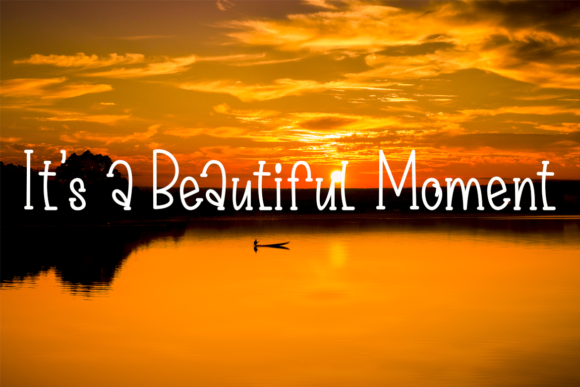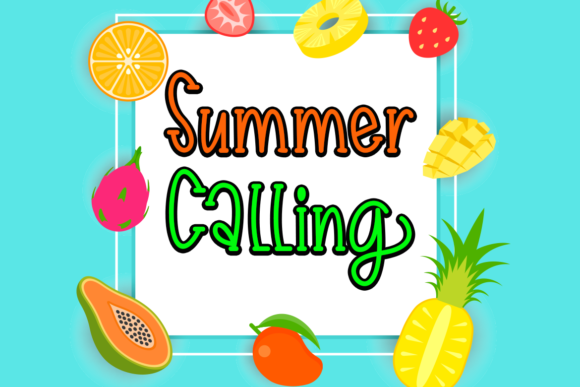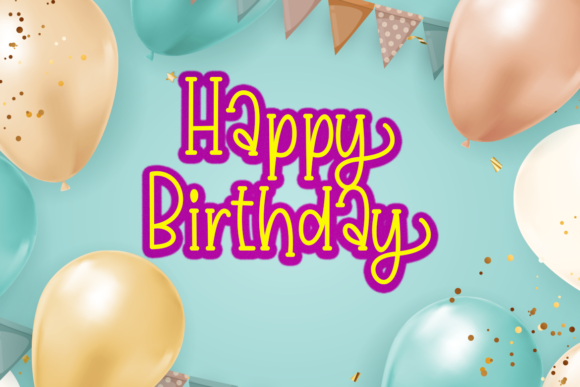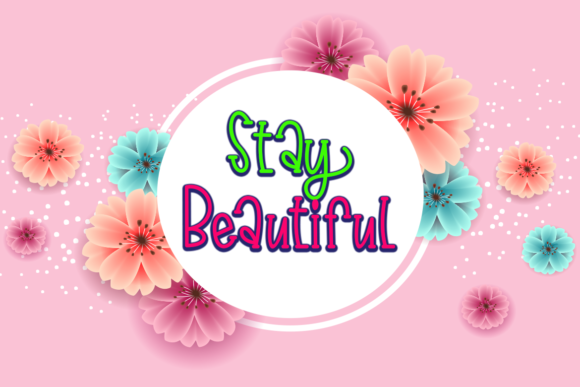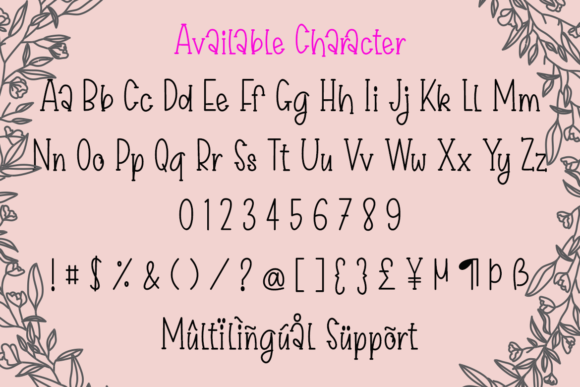
There’s something magical about witnessing a beautiful sunset – the vibrant colors, the soft gentle light, and the sense of serenity that comes with it. As creatives, we often find ourselves inspired by nature’s beauty, and that’s exactly what happens when we discover the perfect font to elevate our designs. For those seeking a playful and charming addition to their projects, look no further than the Beauty Sunset Font.
This cute and whimsical handwritten font is designed to bring a touch of personality to your designs. Whether you’re working on a branding project, a social media campaign, or a personal creative endeavor, Beauty Sunset Font is sure to brighten up each of your creations. With its unique charm and character, it’s no wonder this font has become a favorite among designers looking to add a touch of magic to their work.
Key Features of Beauty Sunset Font
- Font Family: Beauty Sunset Font
- Unique Characteristics: Unique blend of modern and classic elements, perfect for creating a warm and inviting atmosphere in designs and publications
- Language Support: Supports multiple languages including Latin, Cyrillic, and Greek alphabets
Beauty Sunset Font Review
As a designer, I was excited to dive into the Beauty Sunset Font, and I must say it has some amazing qualities that caught my attention. ✨
- The unique, hand-drawn feel of the font is perfect for adding a touch of personality to designs. ✨
- The font’s bold lines and playful curves make it ideal for use in titles, headings, and other prominent text elements. ✨
- The font’s versatility allows it to work well in a variety of contexts, from modern and sleek to vintage and whimsical. ✨
However, I did encounter some limitations that may impact its usability in certain projects. ⚠️
- The font’s bold and playful nature can sometimes make it difficult to read, particularly in smaller text sizes. ⚠️
- The font’s unique style may not be suitable for use in formal or professional contexts where a more traditional font is preferred. ⚠️
Overall, I would recommend the Beauty Sunset Font for projects where a playful, hand-drawn feel is desired. While it may have some limitations, its unique style and versatility make it a great addition to any designer’s toolkit.
The Beauty Sunset Font is perfect for creating romantic and elegant designs. Here are some tips and common use cases:
- Use the font for wedding invitations, birthday cards, or other special occasion designs.
- Apply the font to your social media posts or blog headers for a touch of elegance.
What is the character set of the Beauty Sunset Font?
The Beauty Sunset Font includes a comprehensive character set that covers Latin, Cyrillic, and Greek alphabets, as well as a range of punctuation and symbol characters. The font also includes support for ligatures, fractions, and other advanced typographic features.